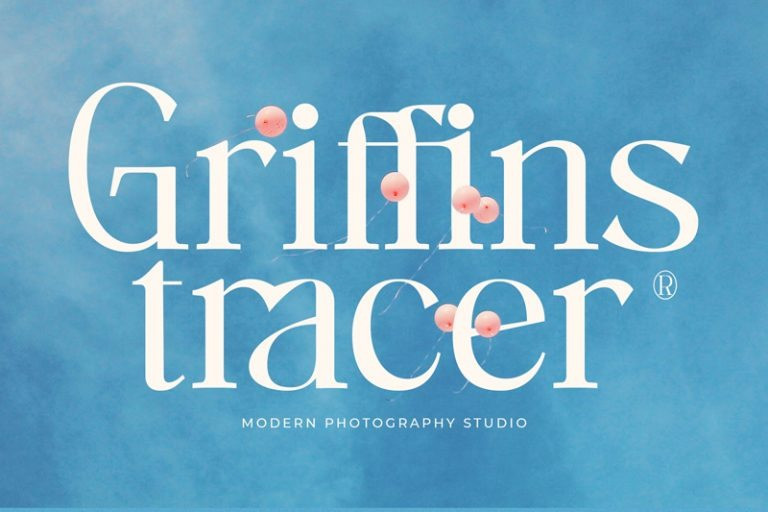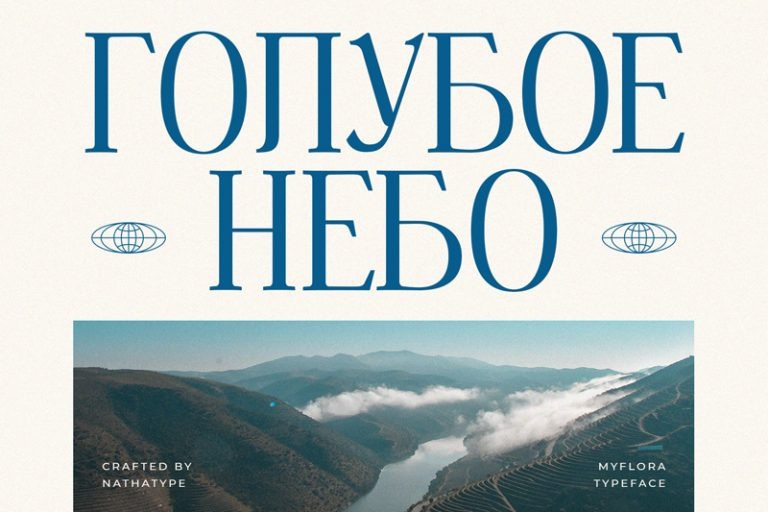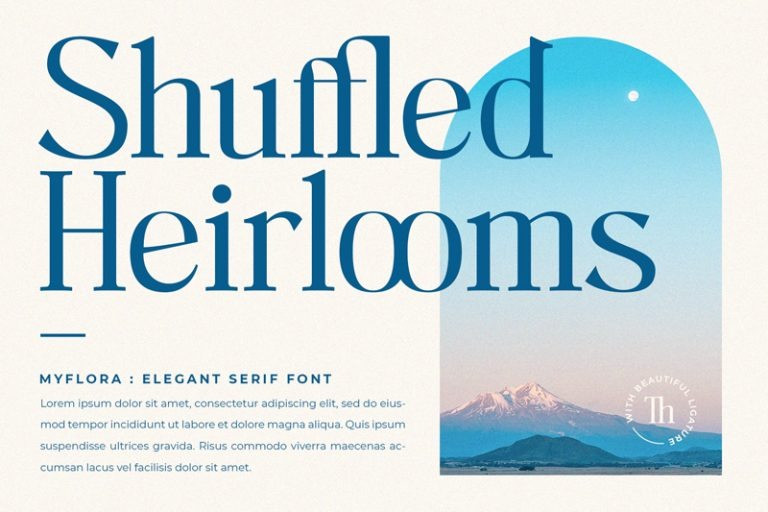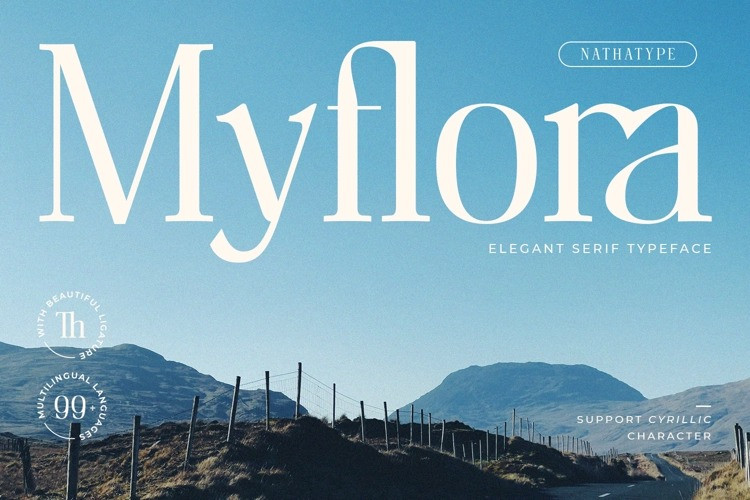
Myflora Font
Myflora Serif Font is a aesthetic bold serif font crafted & designed by Din Studio. Unique shape gives a deep impression. Like the other serif font, its main characteristic is the small hooks on the letters’ edges. Besides, its morphological letter forms are simply presented with high contrasts and wide spaces to be legible enough to use in any text sizes. Furthermore, you can enjoy the available features in this font.